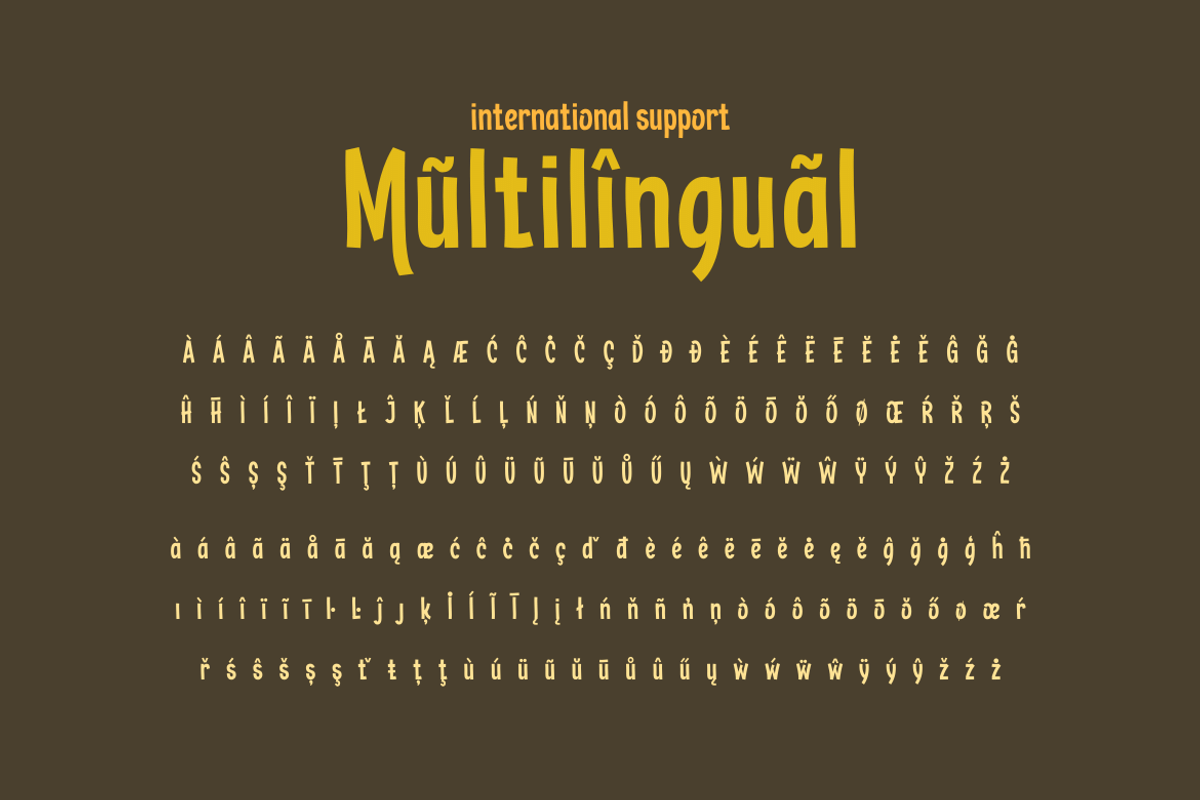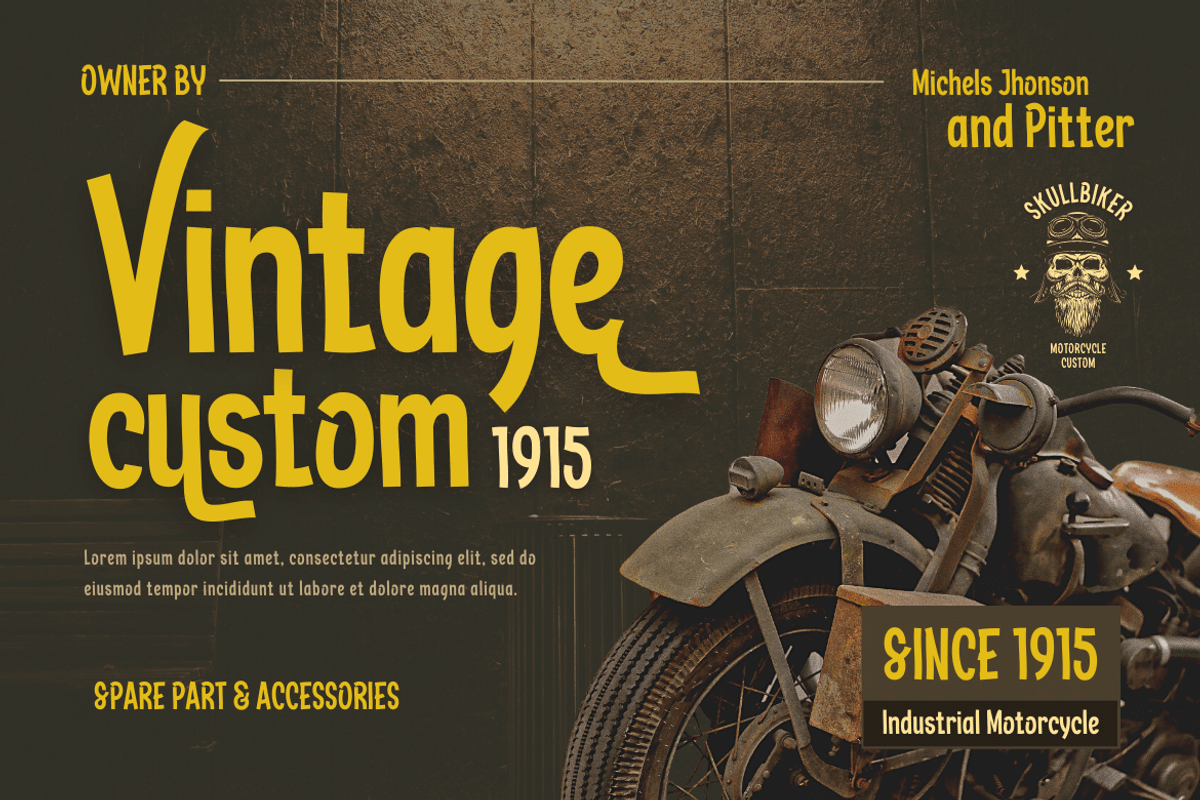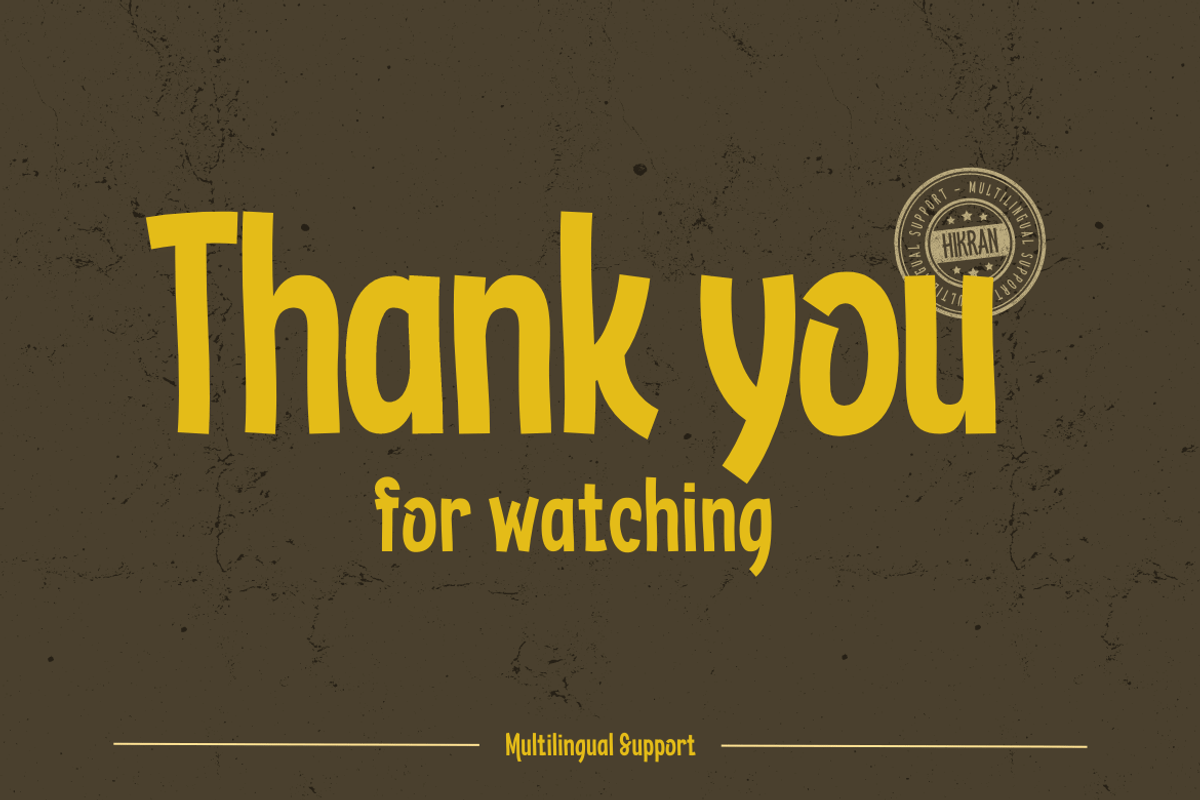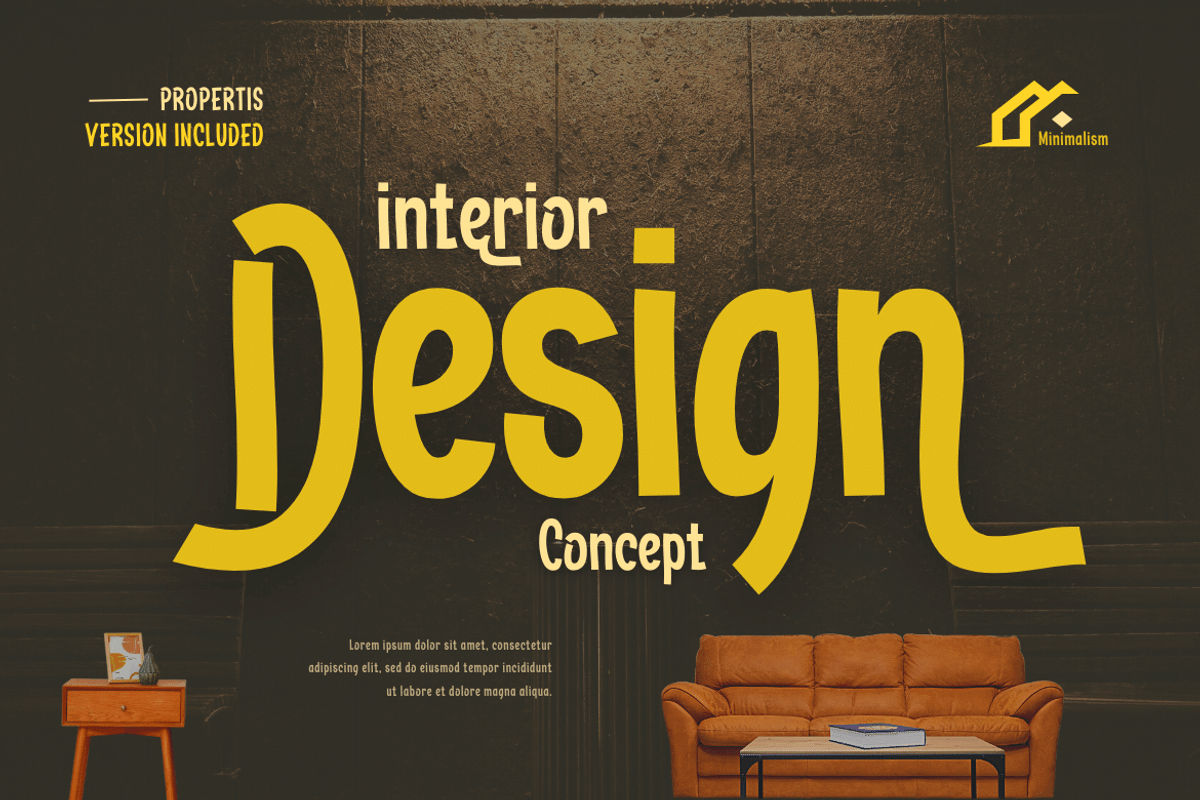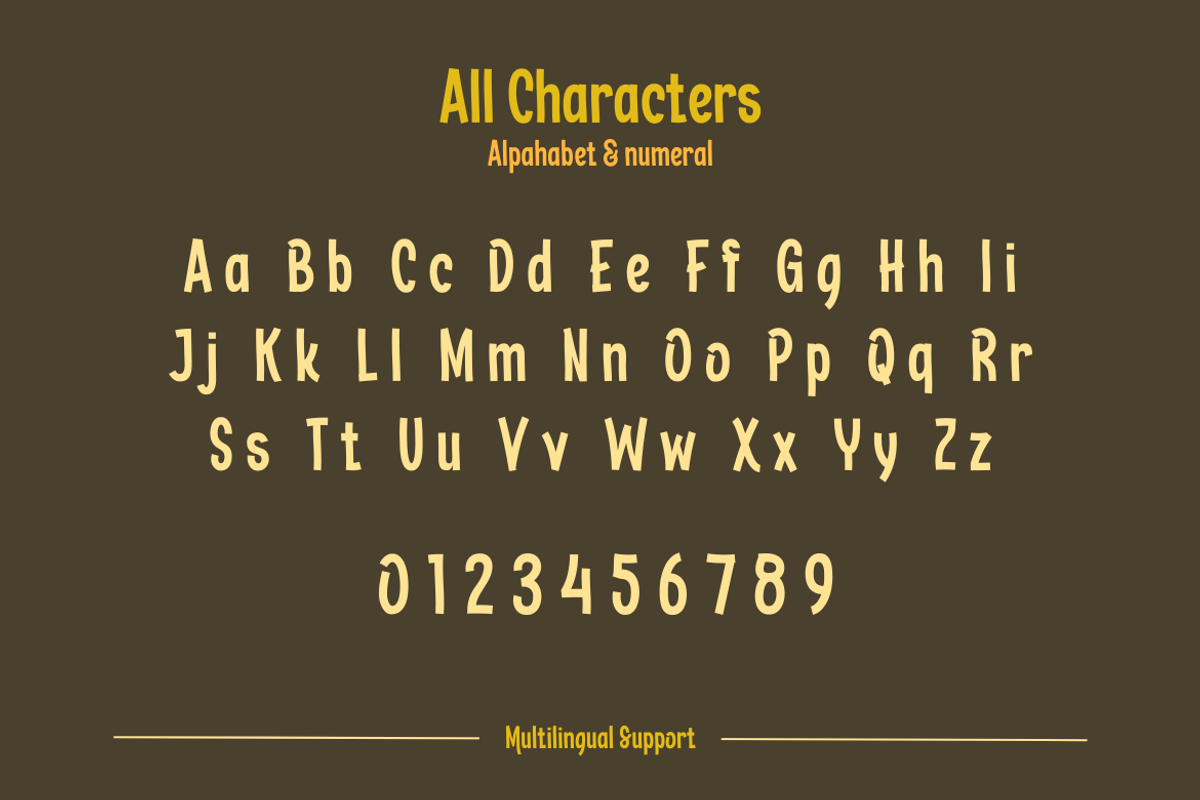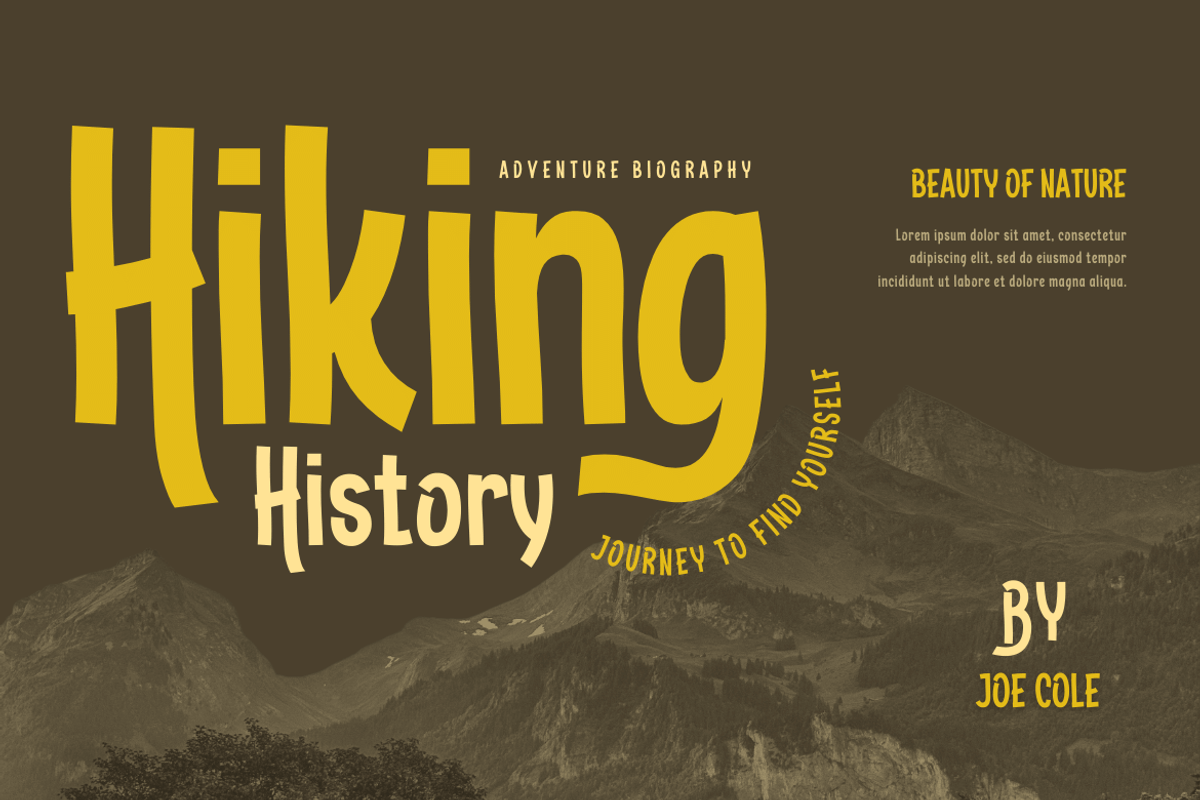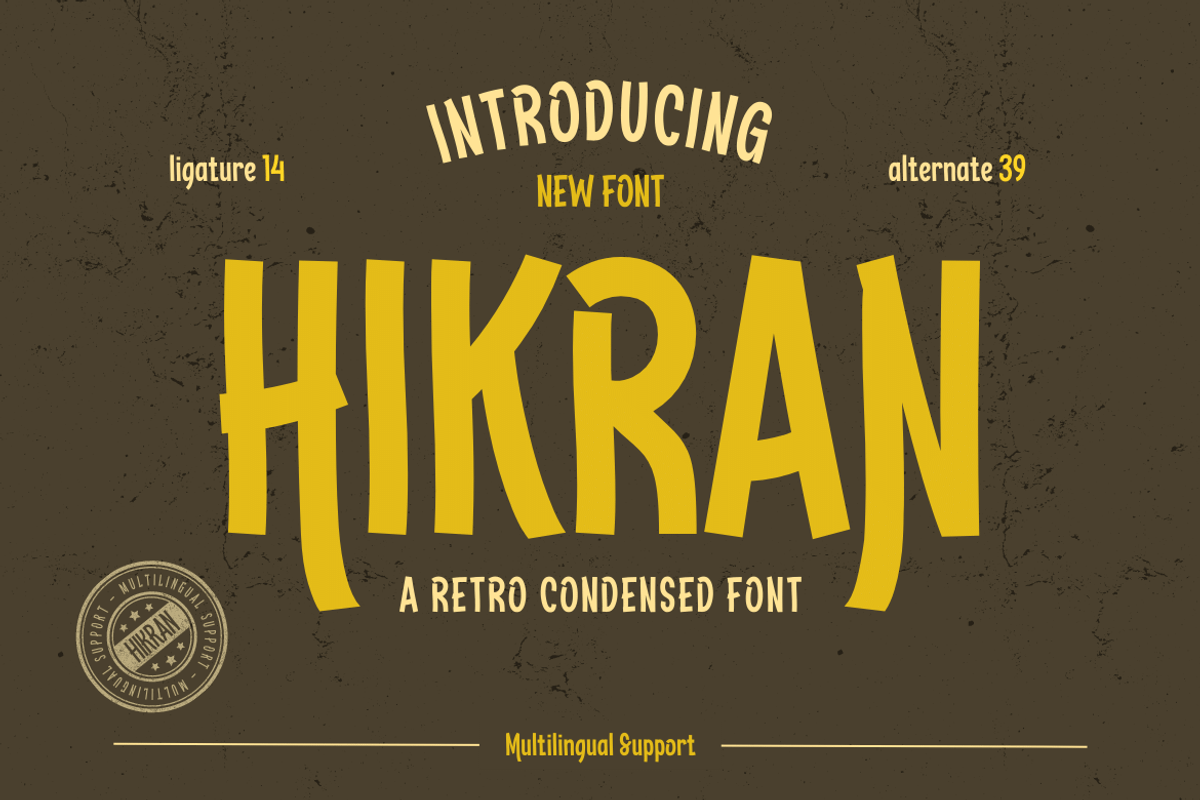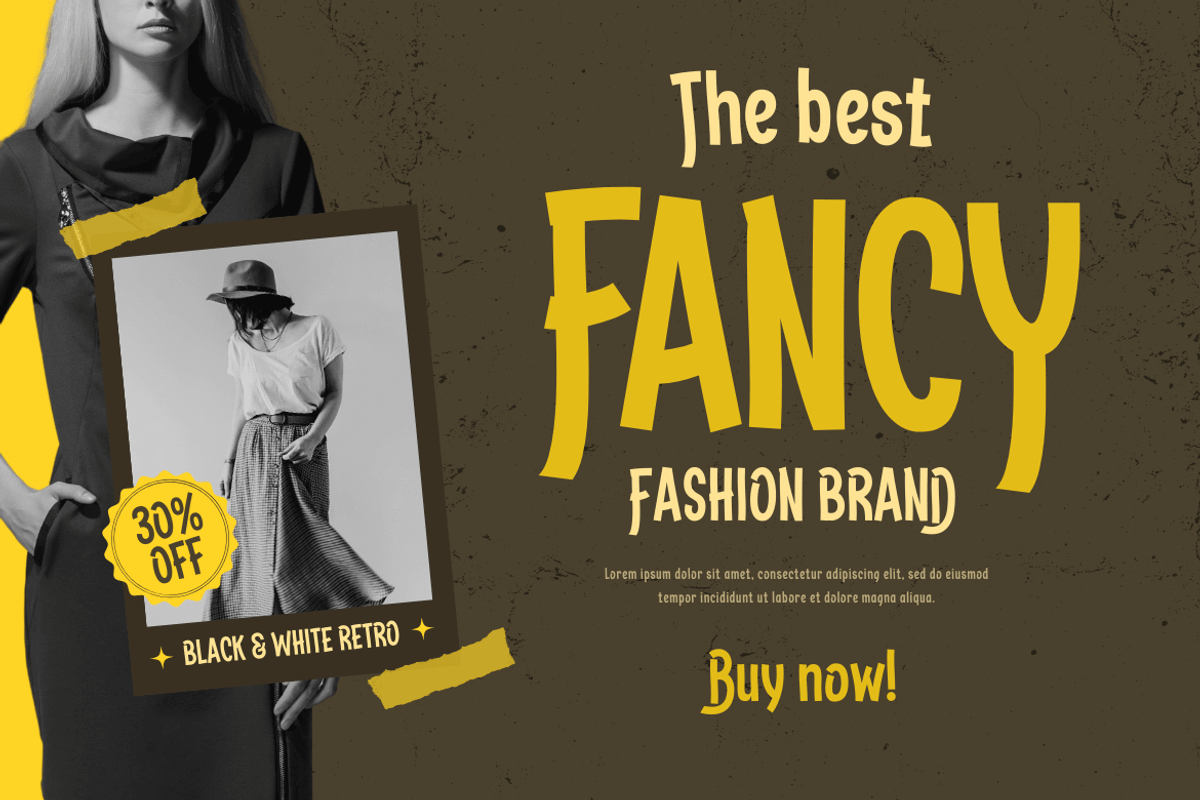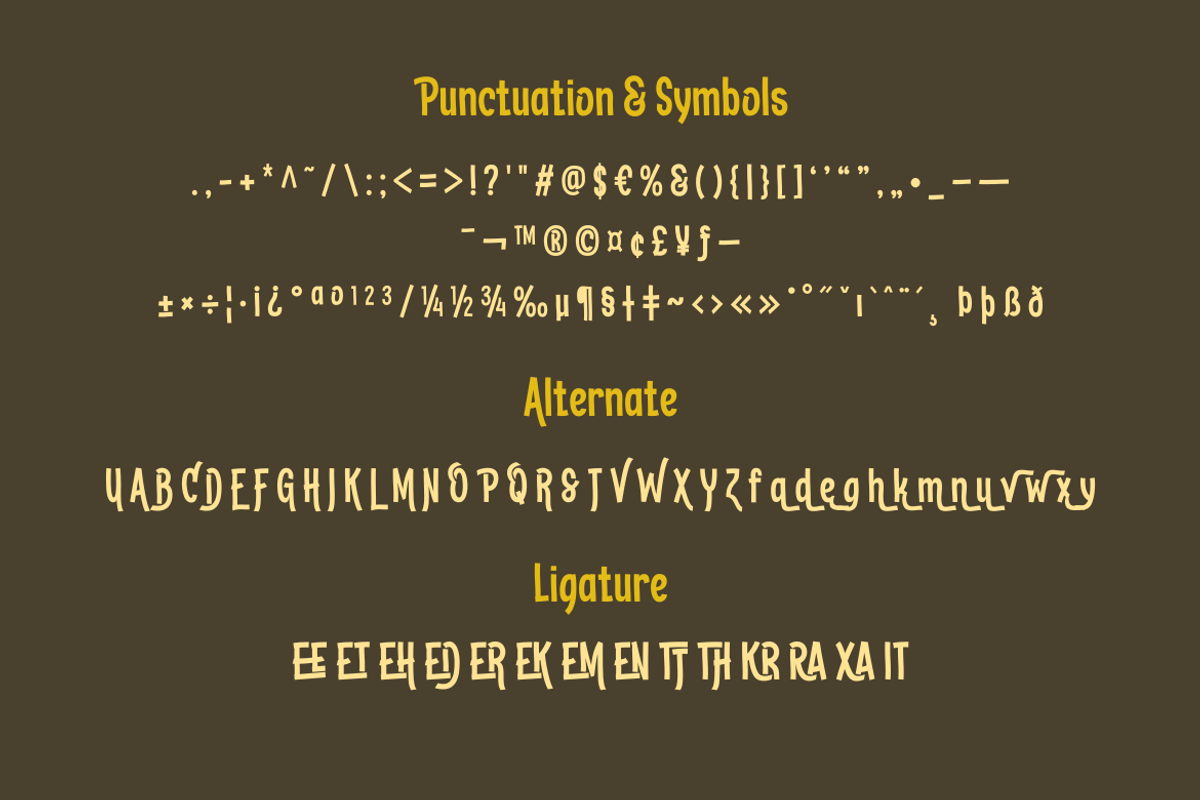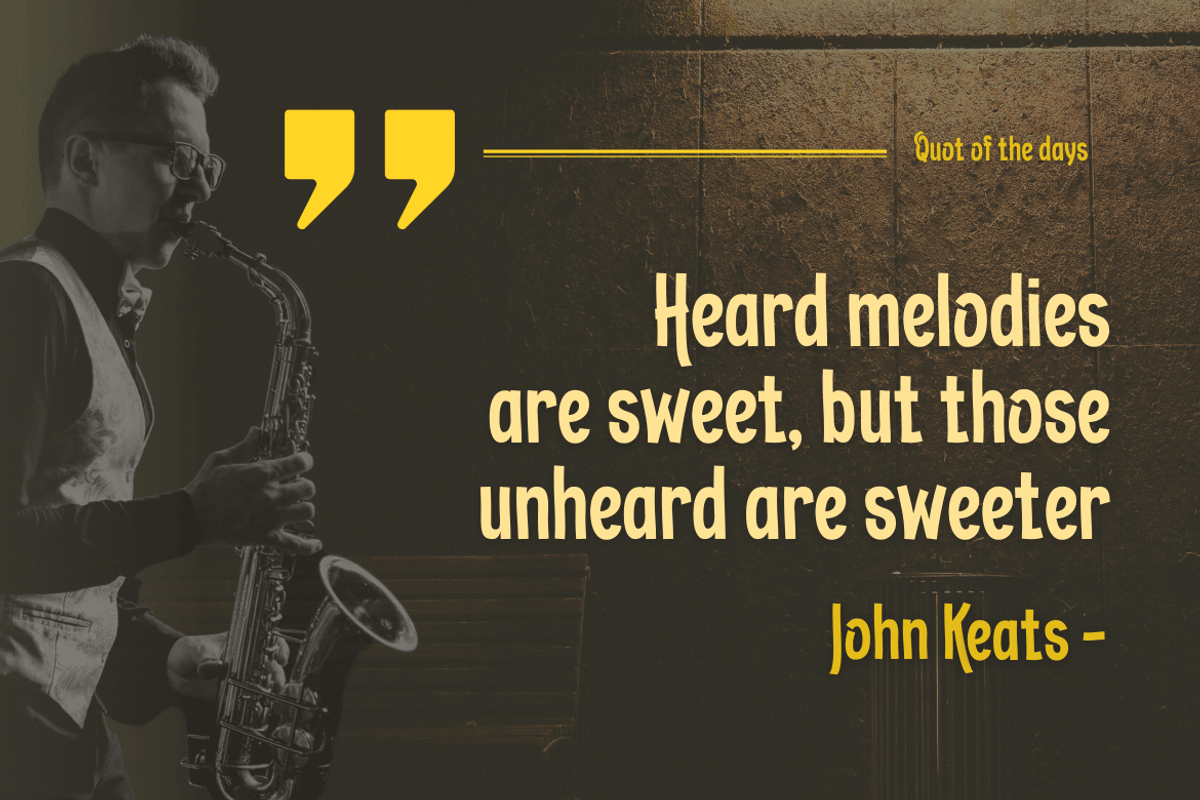
Hikran | Retro Condensed Font
Introducing Hikran, a stylish retro condensed font perfect for various design projects. With its tall and unique letter shapes, Hikran is a great choice for both headlines and body text. The font comes with stylistic alternates and ligatures, giving you plenty of options to create a personalized look. Hikran’s retro theme adds a touch of nostalgia to your designs, making it perfect for vintage-inspired projects or any design that needs a bold and classic feel.
Whether you’re designing a poster, logo, or branding materials, Hikran is sure to make an impact. Its sleek and elegant style pairs well with any design, and its multi-language support makes it accessible to a wider audience. With Hikran, you’ll have a versatile and reliable font that will elevate your design game. Don’t miss out on this must-have font for your collection!
- Alternate, Ligature